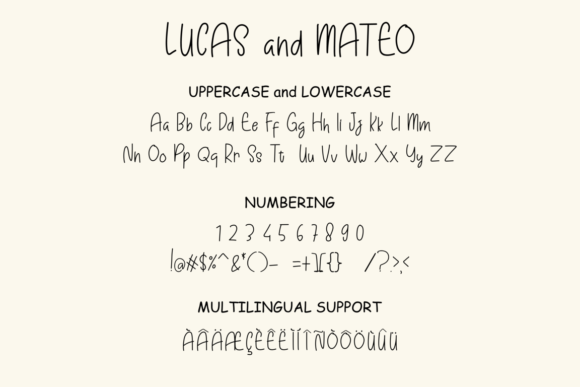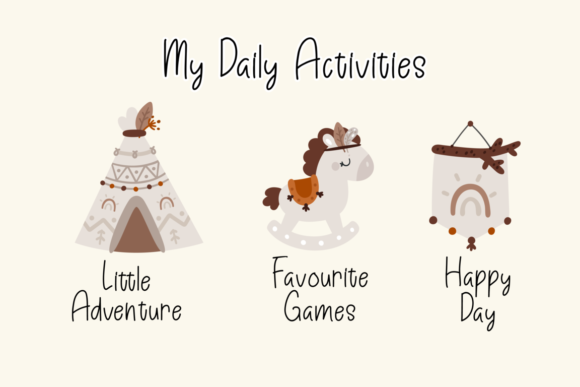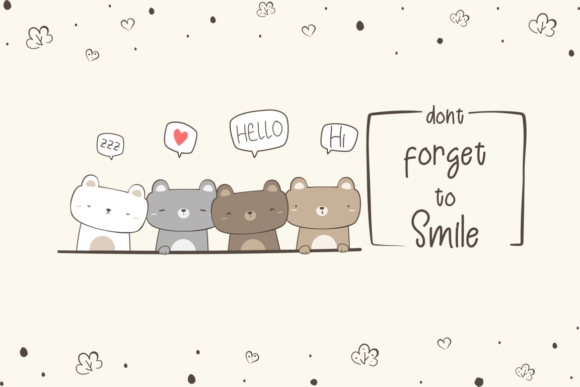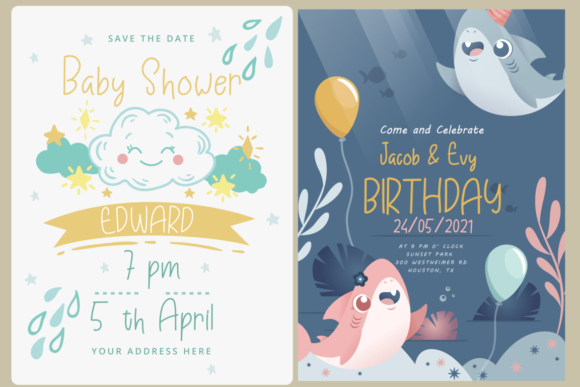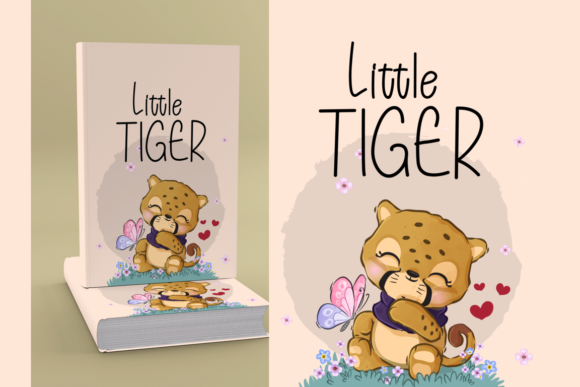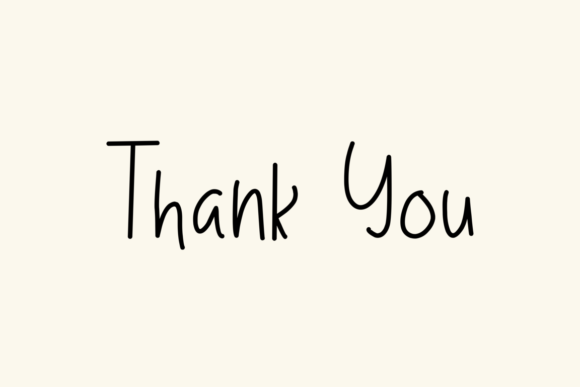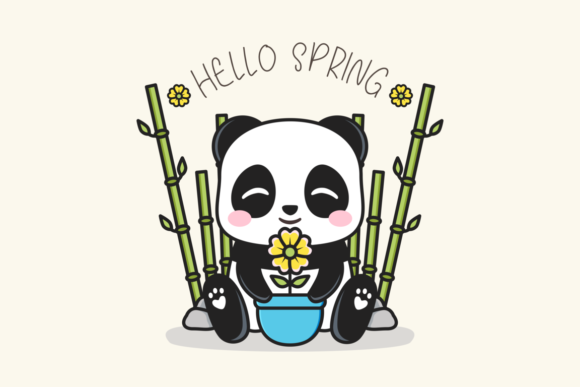
Lucas and Mateo Font
About Lucas and Mateo Font
Lucas and Mateo is a cute and thin lettered handwritten font that can be used for all chalkboard quotes or teaching material! Its authentic look will add a personal and realistic feel to your designs.